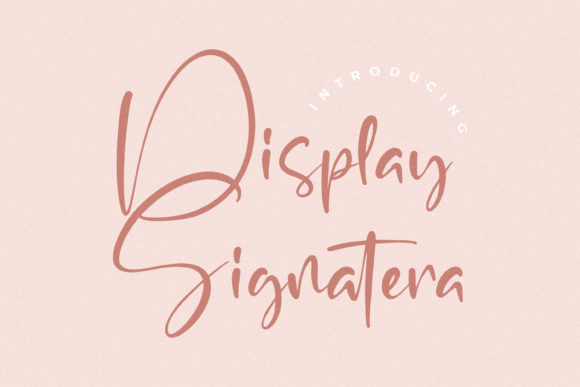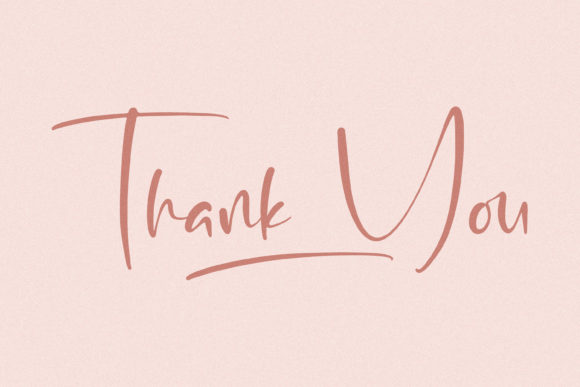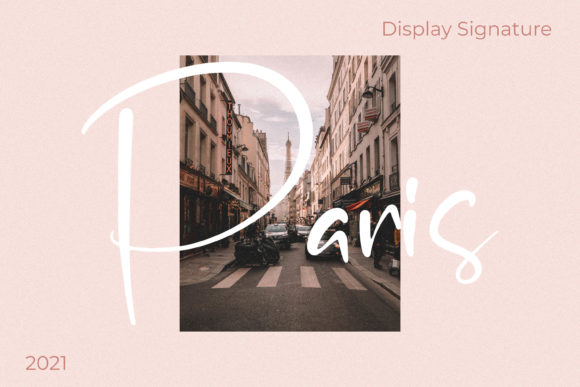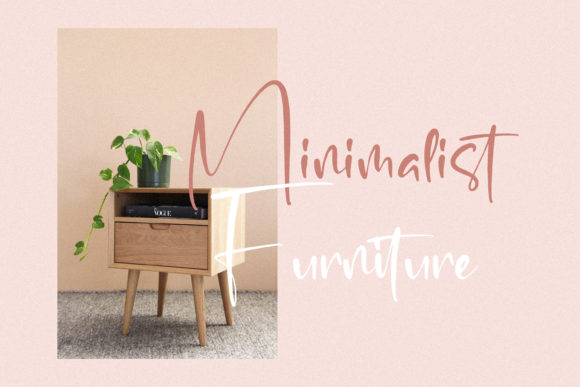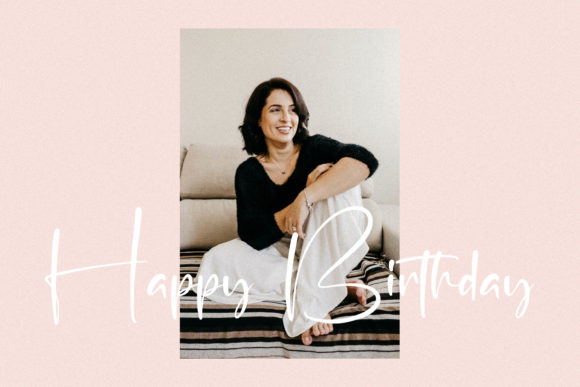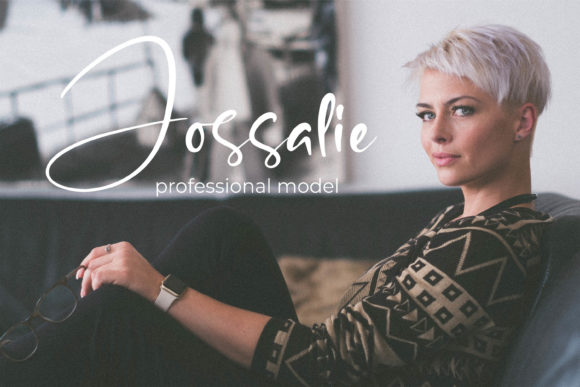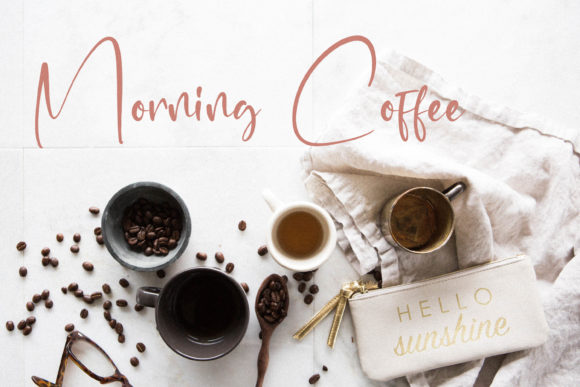
Display Signatera Font
About Display Signatera Font
Display Signatera feels both elegant and distinct. It looks gorgeous on wedding invitations, thank you cards, quotes, greeting cards, logos, business cards and every other design which needs a customized touch.